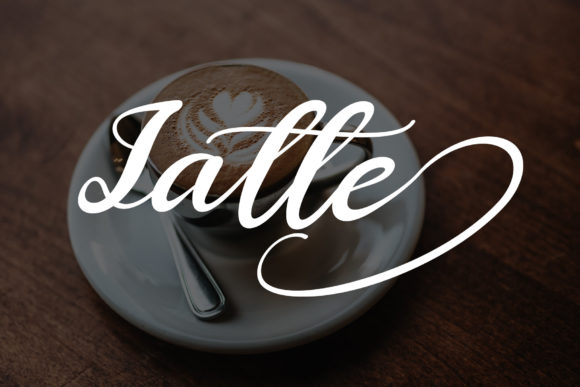
Step into the world of Latte Font - a script font that embodies sophistication and elegance, captivating audiences with its timeless beauty. Designed by the renowned Designvector10, Latte exudes a refined charm that elevates any project to new heights of artistry.
With its graceful curves and stylish alternates, Latte Font adds a touch of luxury to your designs. Its ligatures, carefully crafted to create seamless connections between letters, enhance the font's overall aesthetic, resulting in a visually stunning masterpiece.
Effortlessly versatile, Latte Font adapts seamlessly to a wide range of creative projects. Whether you're crafting business letters, designing logos, creating social media graphics, or writing invitations, Latte Font adds a touch of sophistication that leaves a lasting impression.
Latte Font's PUA encoding ensures that accessing all its glyphs and swashes is a breeze. Unleash your creativity and explore the endless possibilities, transforming ordinary designs into extraordinary works of art.
Embrace Latte Font today and unlock a world of sophistication and elegance in your design projects. Let your creativity soar as you experience the beauty and versatility of this exceptional script font.